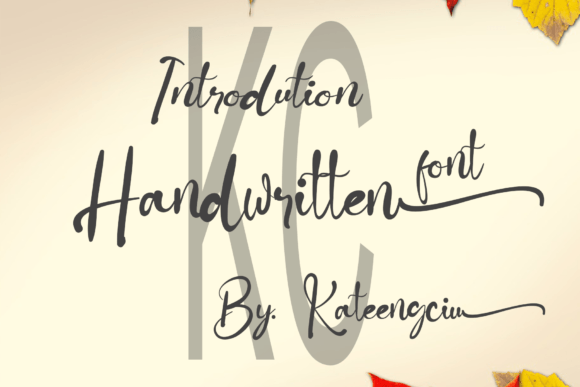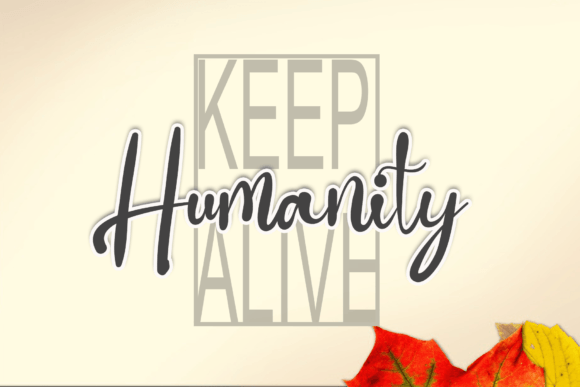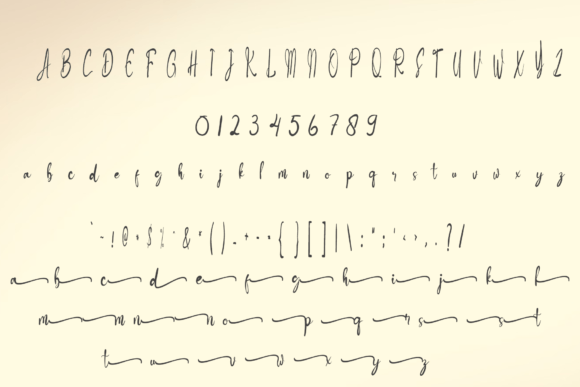
About Butterfuul Font
“Butterfuul” is a sweet, romantic, and beautiful script font designed with elegant curves in each letter. Its charming and graceful aesthetic makes it a perfect choice for various design projects, adding a touch of romance and beauty. Additionally, being PUA coded means that you can easily access all the glyphs and swashes, enhancing the versatility of the font.
The romantic and beautiful qualities of “Butterfuul” make it well-suited for applications such as wedding invitations, thank-you cards, quotes, greeting cards, logos, business cards, and any design that requires a handwritten touch. The font’s emphasis on beautiful curves contributes to its overall appeal, making it a delightful addition to creative projects that aim to convey a sense of romance and elegance.
The PUA coding ensures easy access to the various glyphs and swashes that come with the font. This feature allows you to customize and enhance your designs with additional flourishes and decorative elements, giving you the flexibility to create unique and personalized compositions.
Whether you’re working on digital or print projects, “Butterfuul” invites you to infuse your designs with its romantic and beautiful script. Let it be the go-to font that adds a touch of sweetness and sophistication to your creative endeavors, creating visually stunning and memorable results.